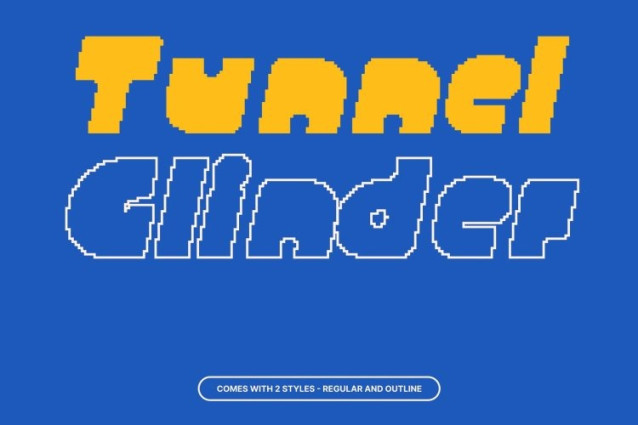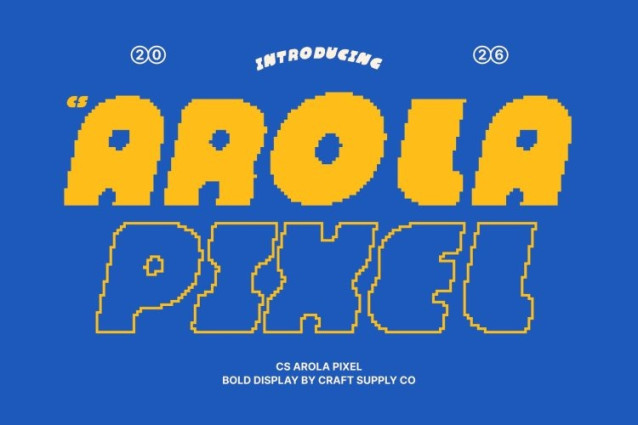
CS Arola Pixel Font
CS Arola Pixel Font This is a bold display font that blends confident strength with a soft, approachable attitude, enhanced by a distinctive pixel style. Built with chunky letterforms and generous weight, this font delivers instant visual impact while channeling a playful digital spirit. The pixel construction adds a retro-tech nuance, making the font feel energetic, expressive, and visually memorable.
Funky Shapes with Playful, Digital Character
What truly defines this font is its funky and lively design. Rounded, chunky pixel shapes create a sense of rhythm and movement, giving the font a cheerful and modern personality. The pixel aesthetic introduces a nostalgic digital vibe reminiscent of classic games and early screen typography, while still feeling fresh and contemporary.
Bold Weight with Soft, Friendly Appeal
Despite its heavy presence, this font feels smooth and welcoming. Softened edges and balanced proportions create a pleasing contrast between power and friendliness. This harmony allows the font to stand out clearly in bold compositions without feeling harsh, ensuring comfortable readability even at large sizes.
Perfect for Expressive and Eye-Catching Branding
This font excels in headlines, posters, packaging, social media graphics, and playful branding. Its bold pixel presence makes it ideal for creative campaigns, youth-oriented designs, digital products, and fun visual identities that aim to feel confident, modern, and full of personality.